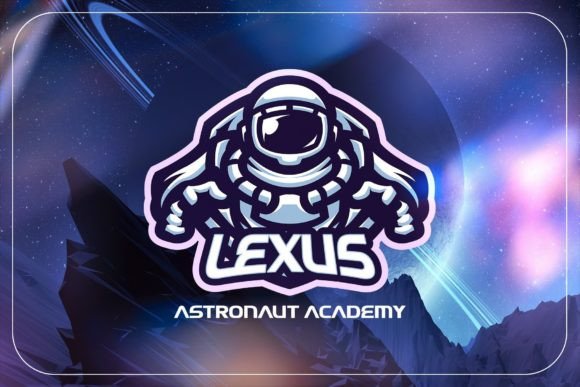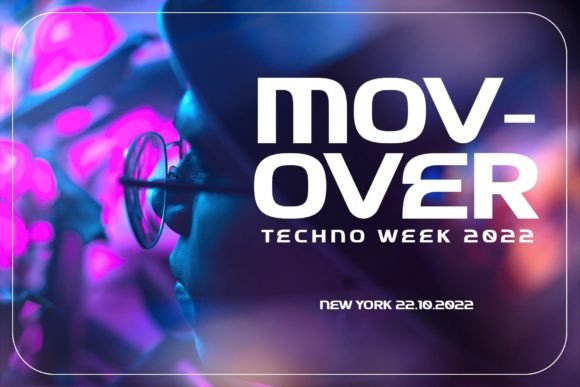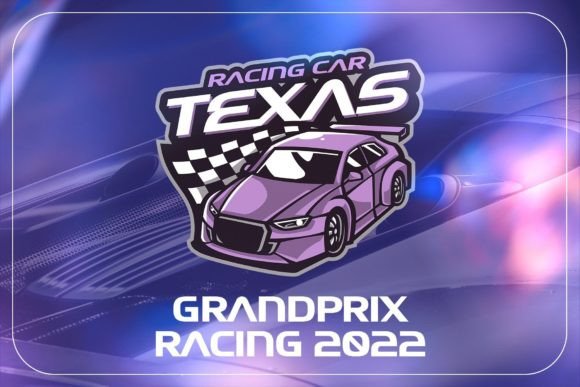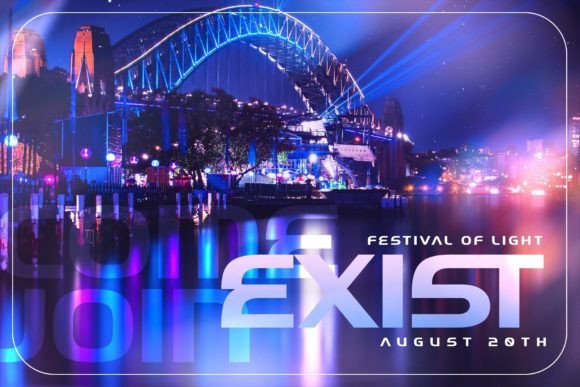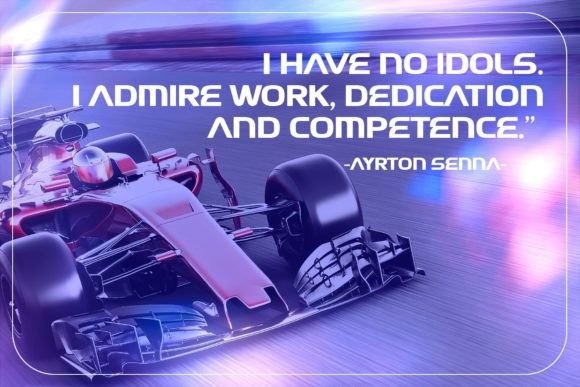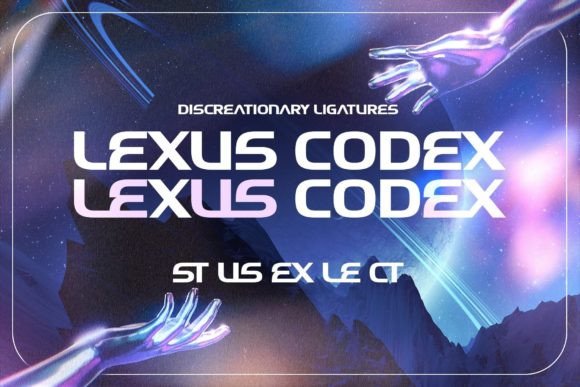
I still remember the frustration of working on a project, hours spent crafting the perfect design, only to hit a roadblock when it came to choosing the right font. My client wanted something modern, something fresh, something that would make their brand stand out in a crowded market. I scoured the internet, tried out countless fonts, but nothing seemed quite right. That was until I stumbled upon Flase Font.
First Impressions: A Love Affair with Flase Font
As soon as I laid eyes on Flase Font, I knew I had found something special. Its sleek lines, futuristic vibe, and effortless cool factor had me hooked. I couldn’t wait to dive in and explore its features. Here’s what I love about Flase Font:
- ✨ Modern and fresh look: Flase Font is perfect for designers looking to add a touch of innovation to their projects.
- ✅ Highly versatile: From digital displays to print materials, Flase Font adapts seamlessly to various mediums.
- 💻 Excellent for tech and gaming projects: The font’s futuristic feel makes it an ideal choice for projects that require a cutting-edge aesthetic.
Honest Review: No Font is Perfect
While Flase Font has won my heart, it’s not without its quirks. Here are a few things to keep in mind:
- 🤔 Limited use in formal contexts: Flase Font’s modern look might not be suitable for more traditional or formal projects.
- ⚠️ Glyph support could be better: While the font comes with a range of glyphs, some users might find the selection a bit limited.
- Experiment with OpenType features like ligatures and stylistic alternates to add some flair to your text.
The Story Behind Flase Font
Flase Font was created with the goal of pushing the boundaries of modern typography. Its designer sought to craft a font that was not only aesthetically pleasing but also highly functional. Inspired by the latest trends in tech and design, Flase Font was born out of a passion for innovation and creativity.
| Font Name | Flase Font |
| Author | Drizy Studio |
| Does Flase Font support OpenType features? | Yes, Flase Font comes with a range of OpenType features, including ligatures and stylistic alternates. |